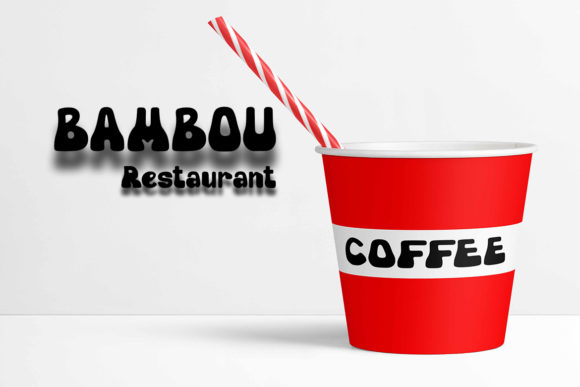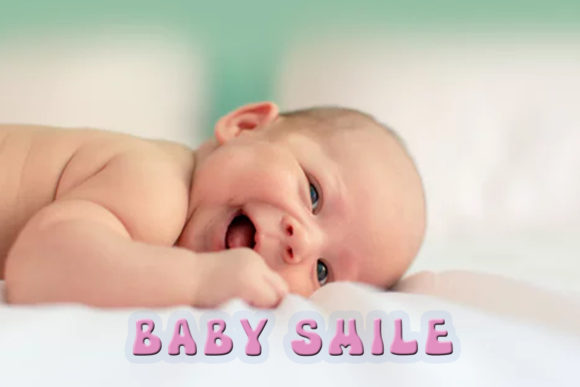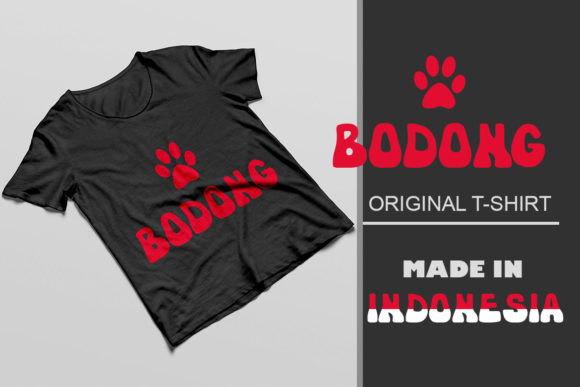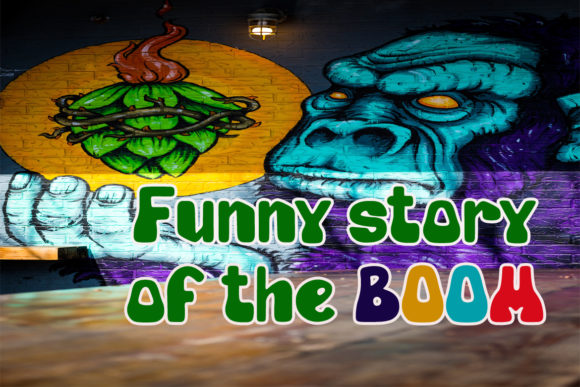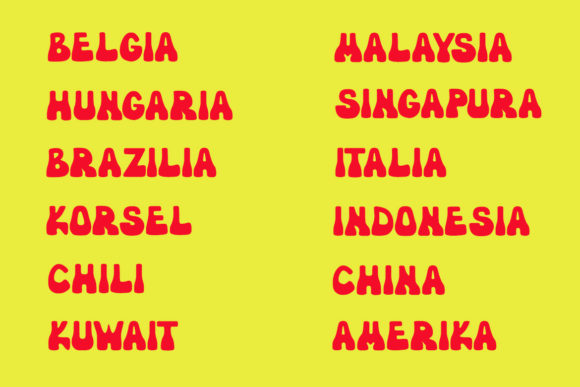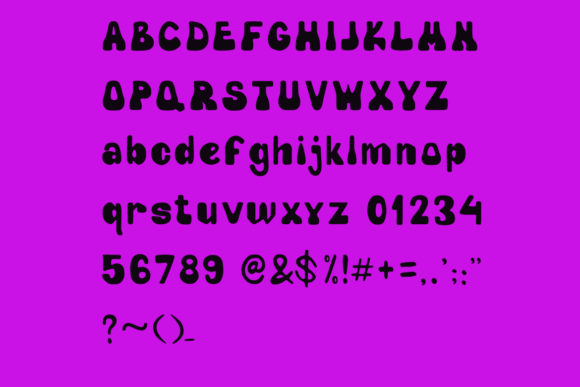
Introducing Blondie Font: The Playful Display Font for Creative Projects
Are you tired of using the same old fonts for your designs? Look no further than Blondie Font, a playful display font that’s friendly, sweet, and perfect for a wide variety of projects. With Blondie, you can add a touch of whimsy and personality to your designs, making them stand out from the crowd.
What is Blondie Font?
Blondie Font is a unique and creative display font that’s designed to make your designs pop. Its playful and friendly vibe makes it perfect for projects that require a lighthearted and approachable feel. Whether you’re working on a logo, branding materials, social media graphics, or even a website, Blondie Font is sure to bring a smile to your audience’s face.
Key Features of Blondie Font
- Playful and Friendly: Blondie Font has a fun and approachable vibe that’s perfect for designs that require a lighthearted touch.
- Sweet and Charming: The font’s sweet and charming personality makes it ideal for projects that require a touch of elegance and sophistication.
- Highly Versatile: Blondie Font can be used for a wide variety of projects, from logos and branding materials to social media graphics and websites.
- Easy to Read: Despite its playful nature, Blondie Font is easy to read, making it perfect for designs that require a clear and concise message.
Who Can Use Blondie Font?
Blondie Font is perfect for designers, crafters, and anyone who wants to add a touch of personality to their designs. Whether you’re a professional designer or a DIY enthusiast, Blondie Font is a great addition to your font collection.
What Projects is Blondie Font Suitable For?
Blondie Font is suitable for a wide variety of projects, including:
- Logos and Branding Materials: Use Blondie Font to create a unique and memorable logo that reflects your brand’s personality.
- Social Media Graphics: Add a touch of whimsy to your social media graphics with Blondie Font.
- Websites: Use Blondie Font to create a friendly and approachable website that resonates with your audience.
- Invitations and Party Decor: Blondie Font is perfect for creating playful and festive invitations and party decor.
- Crafting and DIY Projects: Use Blondie Font to add a personal touch to your crafting and DIY projects.
Tips and Tricks for Using Blondie Font
- Experiment with Different Sizes and Colors: Play around with different sizes and colors to find the perfect combination for your design.
- Pair it with Other Fonts: Blondie Font pairs well with other fonts, so don’t be afraid to experiment with different font combinations.
- Use it for Headings and Titles: Blondie Font is perfect for headings and titles, so use it to add a touch of personality to your designs.
Blondie Font is a playful display font that’s perfect for designers, crafters, and anyone who wants to add a touch of personality to their designs. With its friendly and sweet vibe, Blondie Font is sure to make your designs stand out from the crowd. So why wait? Download Blondie Font today and get creative with it!